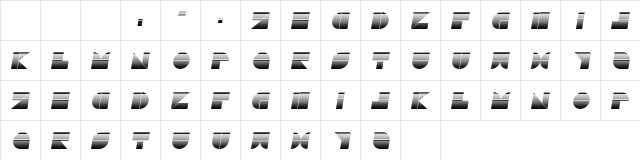
Complete Drebiek Expanded Stripes Italic glyph index. Displaying only characters natively supported by Drebiek Expanded Stripes Italic font.
Drebiek is a composed and adaptable typeface that performs quietly and consistently across a wide range of design contexts. The slanted form adds forward momentum and visual energy.